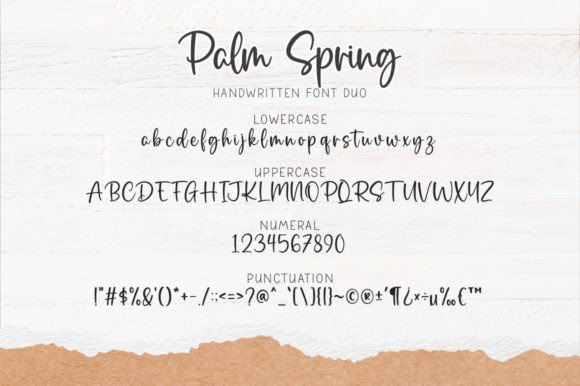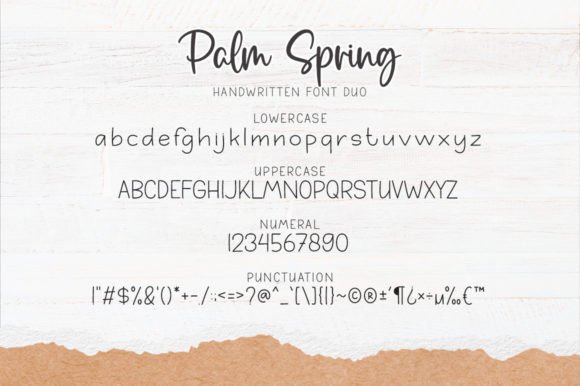
Palm Spring consists of two fonts (script and sans) designed to complement each other perfectly. Together or apart, these fonts are ideal for adding a chic and cheery touch to your crafts.
Palm Spring Font